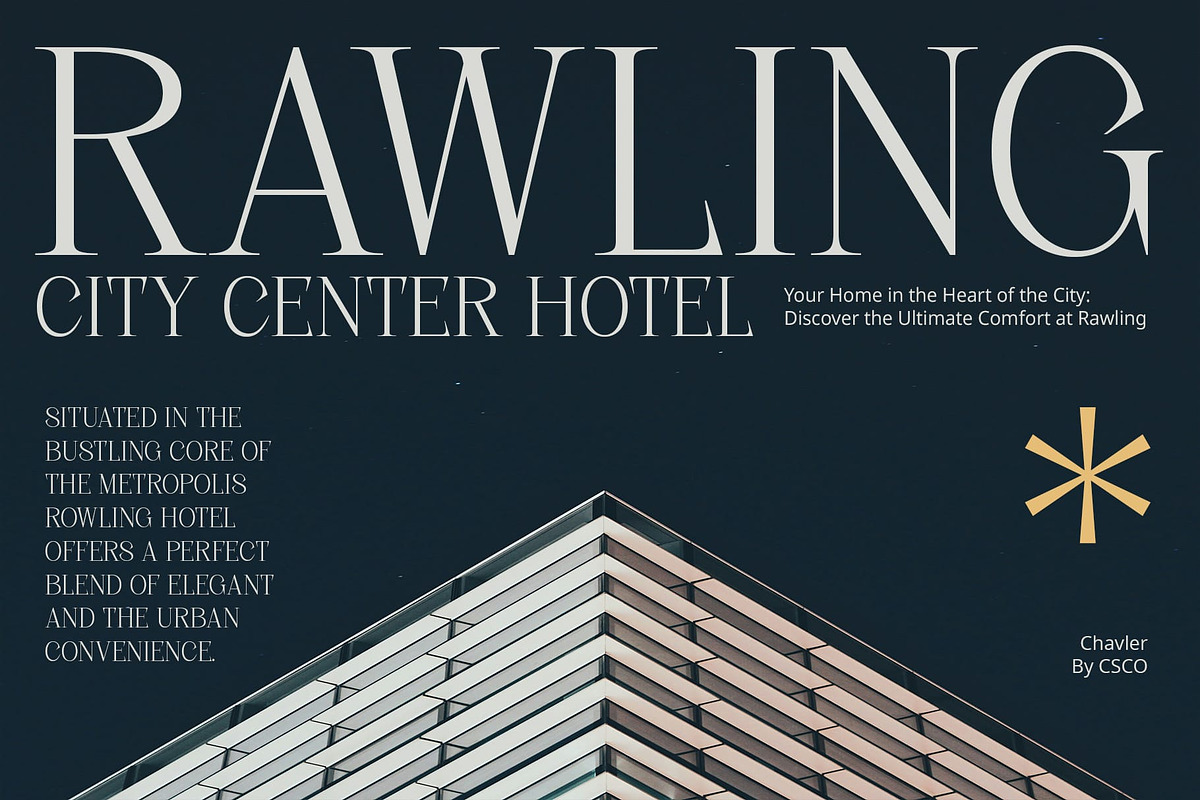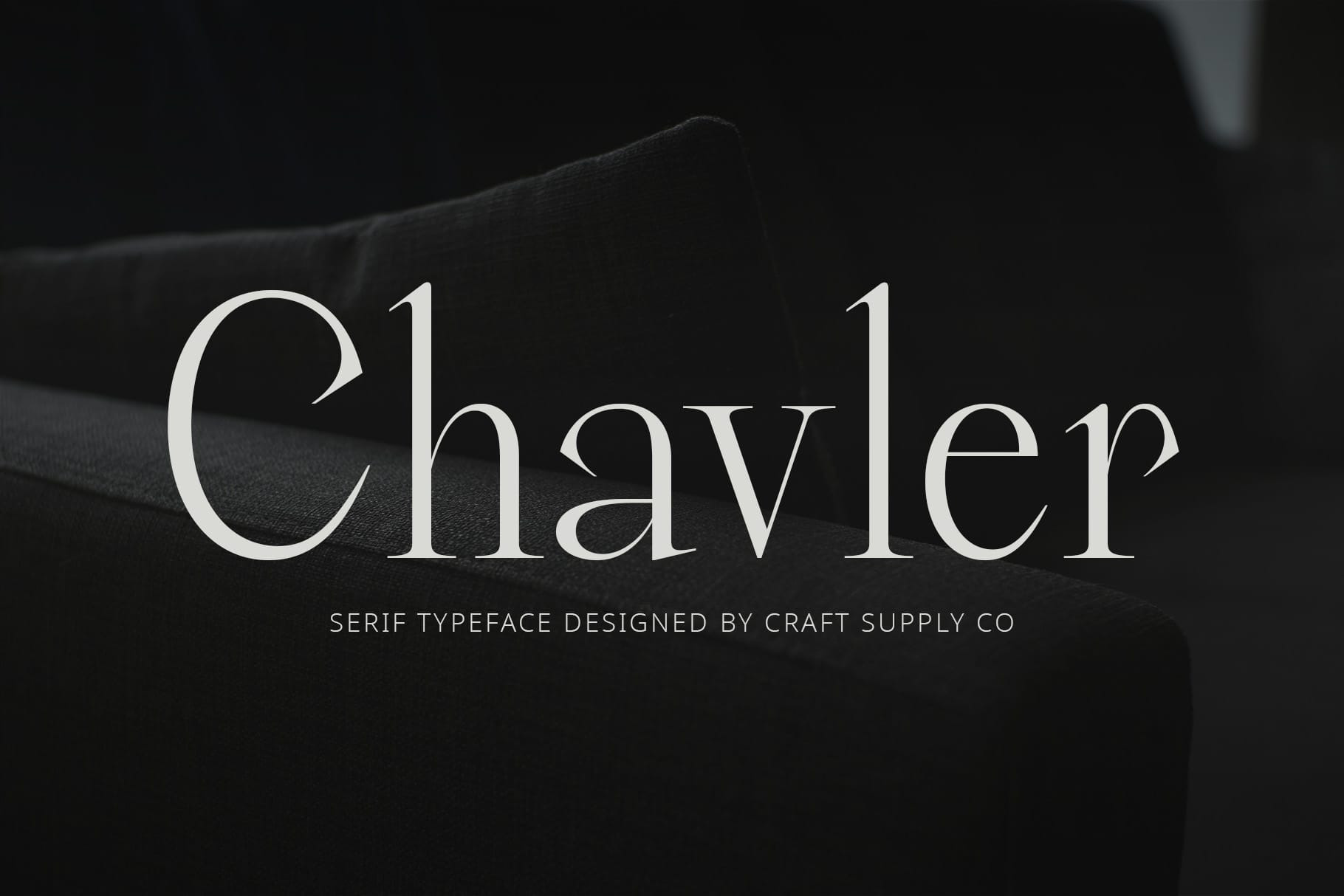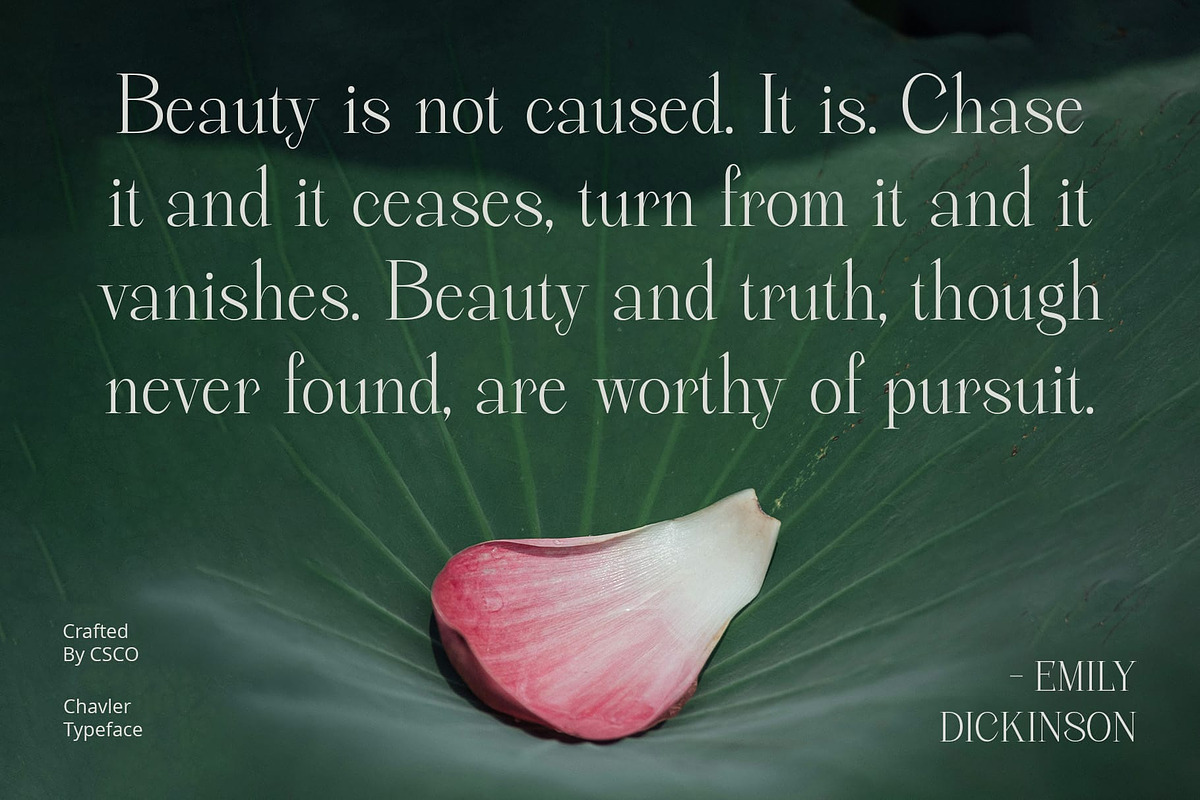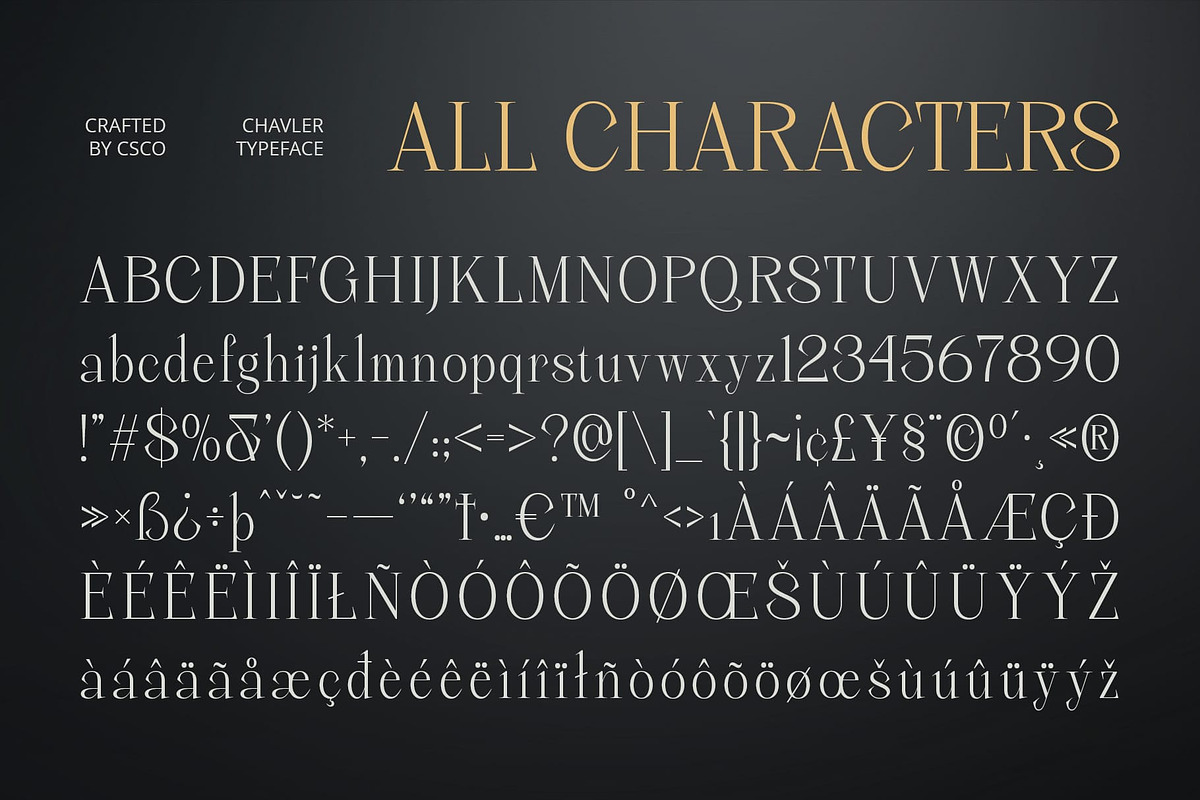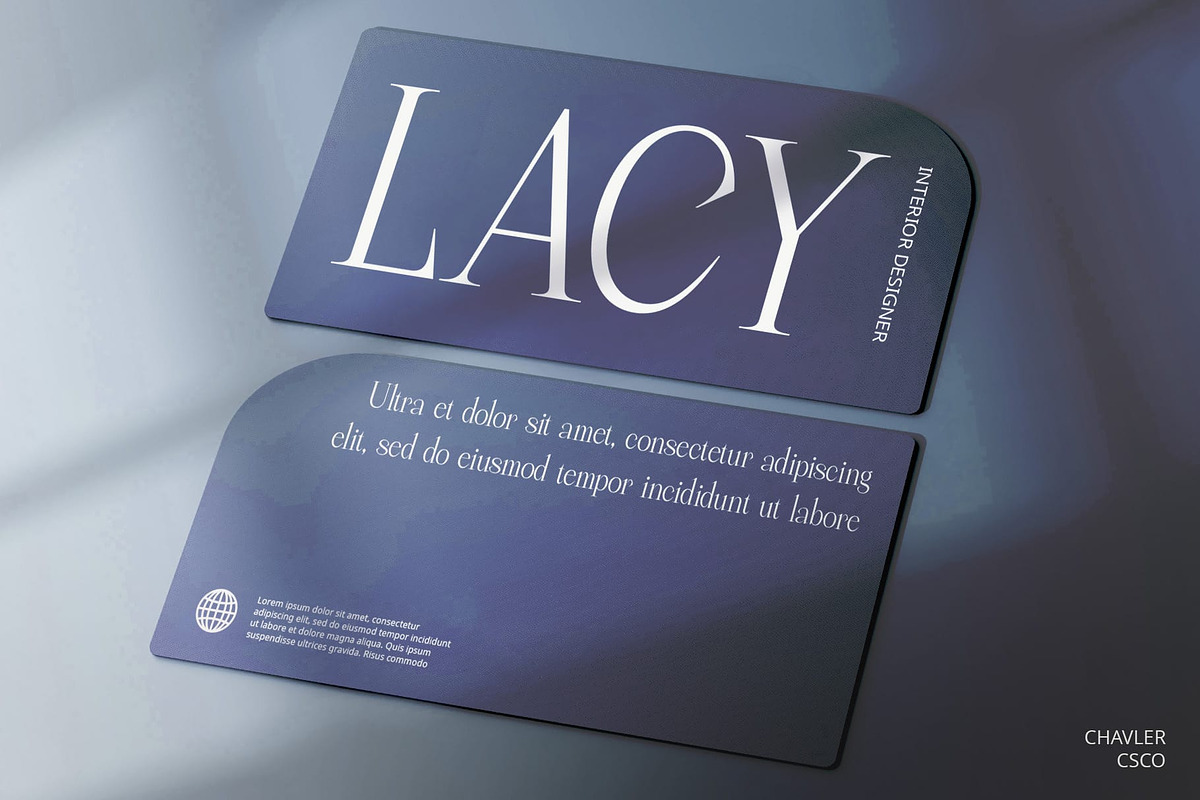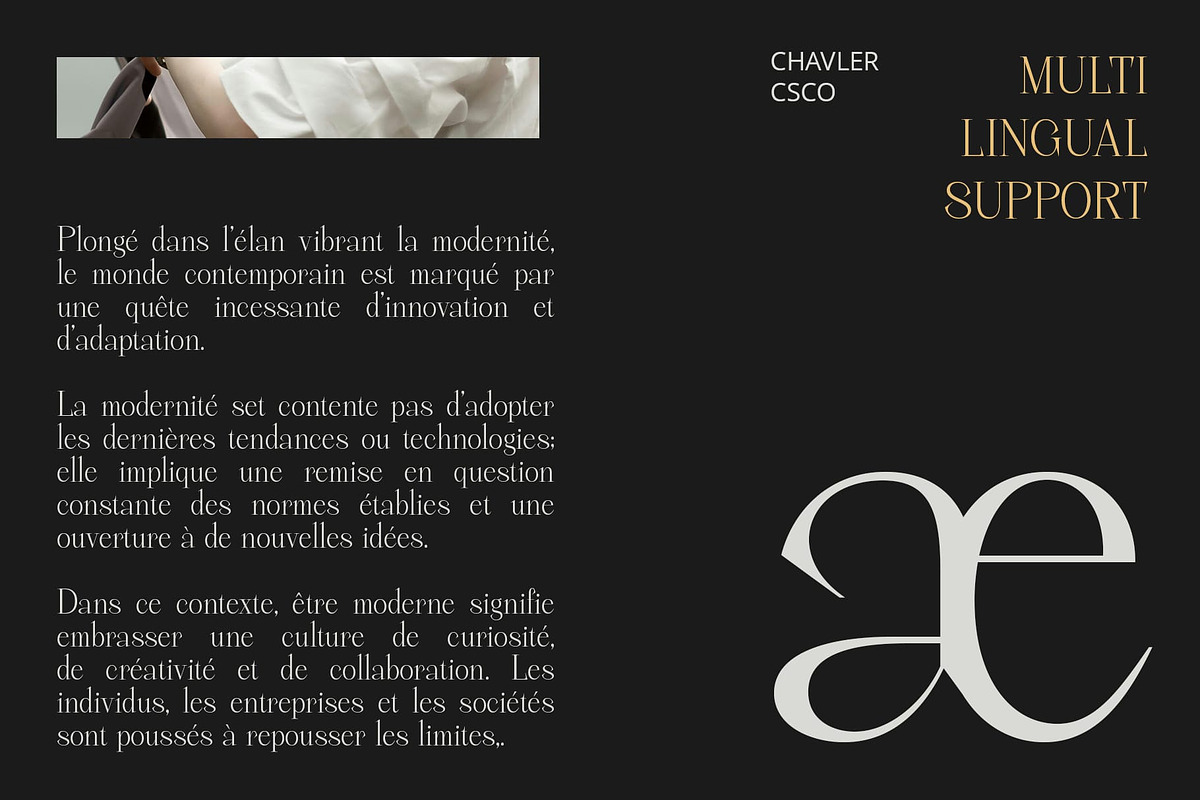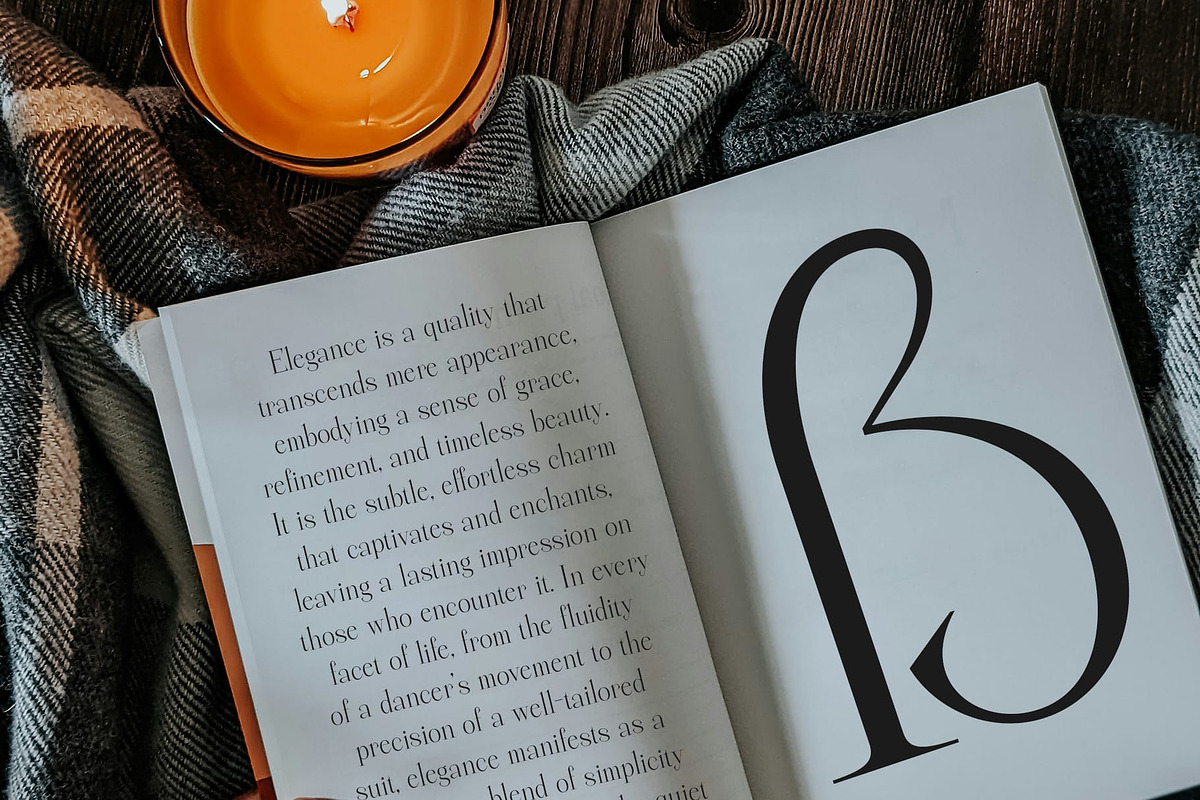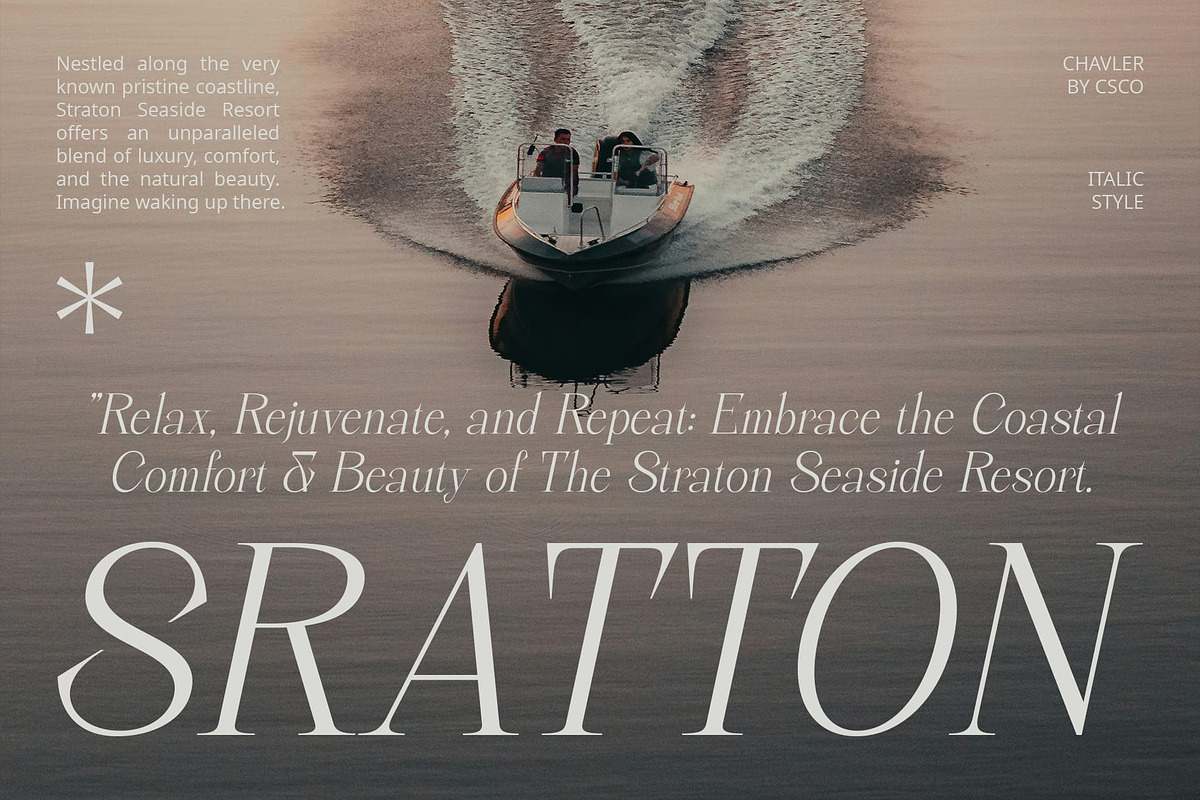
Chavler – Serif Typeface
Chavler – Serif Typeface: Where Modernity Meets Elegance
Modern Serif Typeface
Chavler is a modern serif typeface with an elegant feel, perfect for professional use. Its clean lines and classic proportions give it a timeless appeal, making it suitable for a wide range of design applications.
Versatile and Elegant
With its versatile design, Chavler Typeface is suitable for a variety of uses, including branding, editorial design, and signage. Its elegant feel adds a touch of sophistication to any project, ensuring that your designs are both refined and impactful.
Enhanced Professionalism
Chavler Typeface prioritizes professionalism, ensuring that your designs are both polished and impactful. Whether used in print or digital media, this font adds a sense of sophistication and elegance that resonates with viewers.
Perfect for Professional Designs
Whether you’re designing a corporate identity, creating a sleek editorial layout, or crafting an elegant invitation, Chavler Typeface is the perfect choice for projects that require a modern and elegant look. Its serif style ensures that your designs will always look professional and refined.
- Chavler Regular
- Chavler Italic